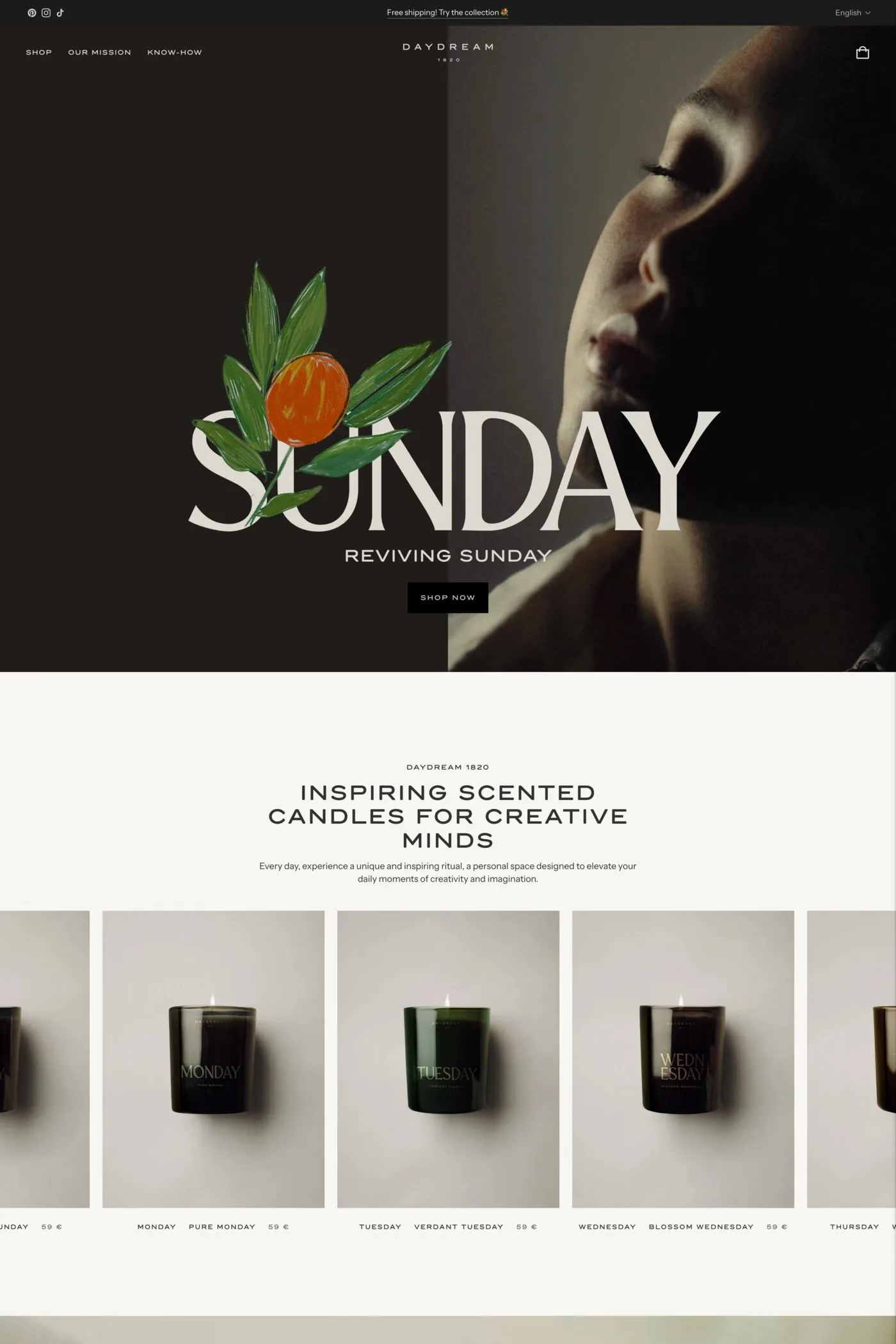
Mondia is a modern serif font family with 18 fonts inspired by transitional and contemporary typefaces. Mondia has been designed with high-contrast character ratio to give an elegant touch, and high x-height to give sentences more legibility.